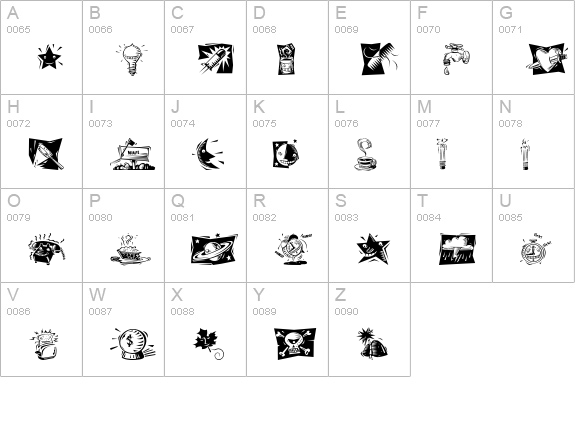
Starman Font Details
Starman font is a captivating and unique typeface that will take your designs to otherworldly heights. This font is perfect for those who seek to add a touch of cosmic elegance and mystery to their projects. With its mesmerizing curves and intricate details, Starman font will transport your audience to a realm of imagination and wonder. What sets Starman font apart is not only its stunning visual appeal but also the fact that it is freely available to download at FontsMarket.com. Yes, you heard it right – this extraordinary font can be yours without any cost. Its creators believe that creativity should know no bounds, and that is why they have made Starman font accessible to all designers, artists, and enthusiasts out there. Whether you're working on a poster, a logo, a website, or any other creative endeavor, Starman font will infuse your designs with a celestial charm that will leave a lasting impression. Its versatility allows it to be used in various contexts, from futuristic sci-fi themes to mystical fantasy realms. The attention to detail in Starman font is simply awe-inspiring. Each letter is meticulously crafted, with a perfect balance of elegance and boldness. The curves and lines flow seamlessly, creating a harmonious visual experience that is both captivating and soothing. With Starman font, you can unleash your imagination and let your creativity soar to new heights. Its timeless appeal will ensure that your designs stand out from the crowd and leave a lasting impact on your audience. So don't miss out on this incredible opportunity to elevate your designs with Starman font. Visit FontsMarket.com today and download this enchanting typeface for free. Let your creativity shine like the stars with Starman font.